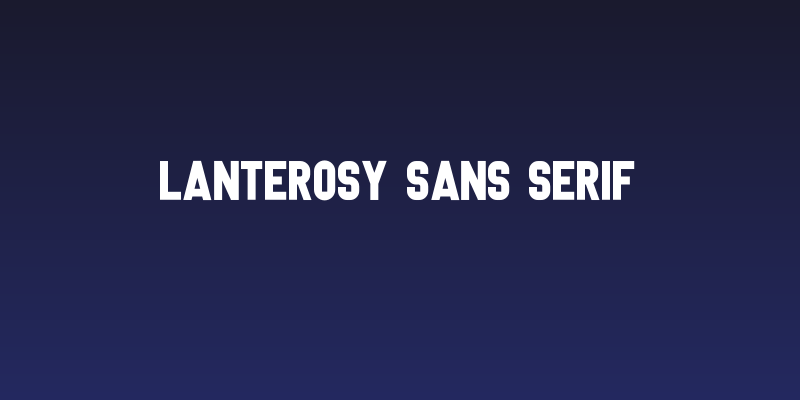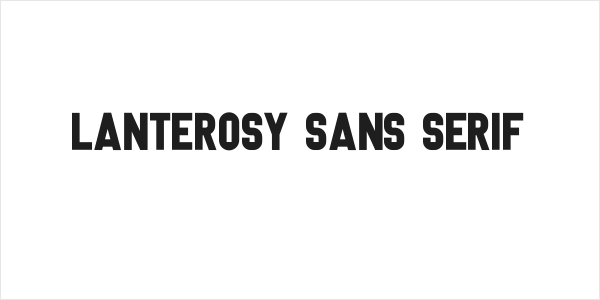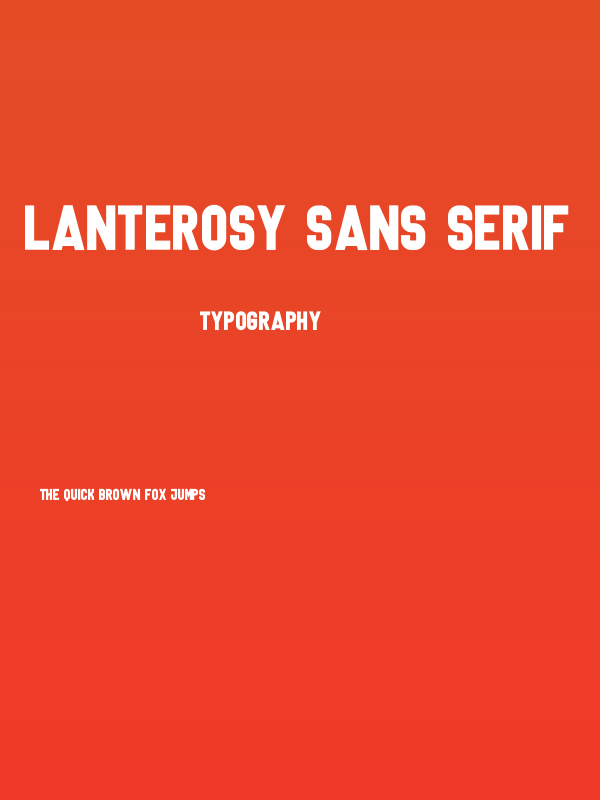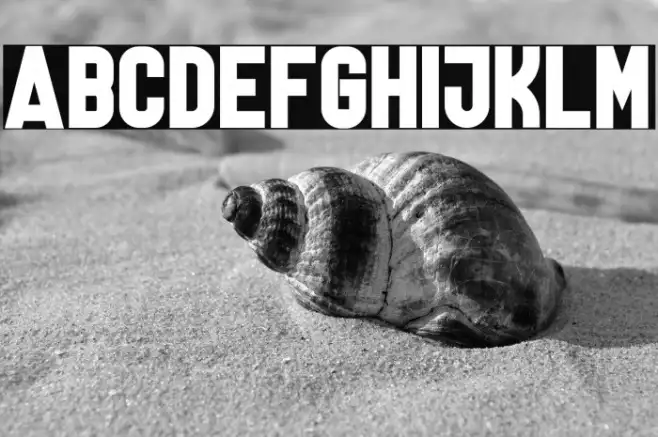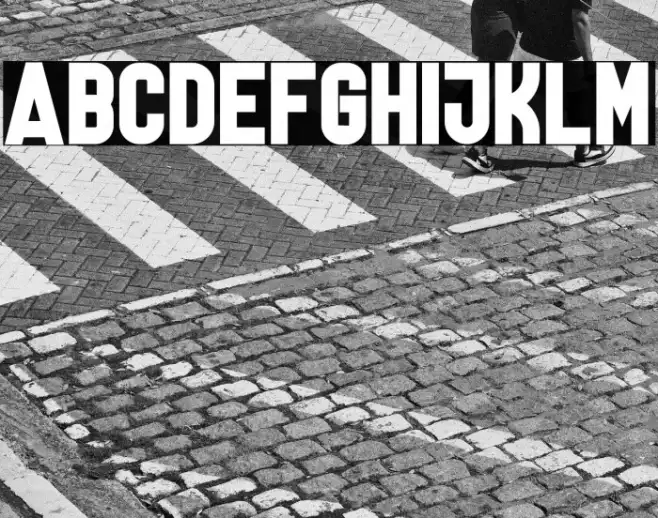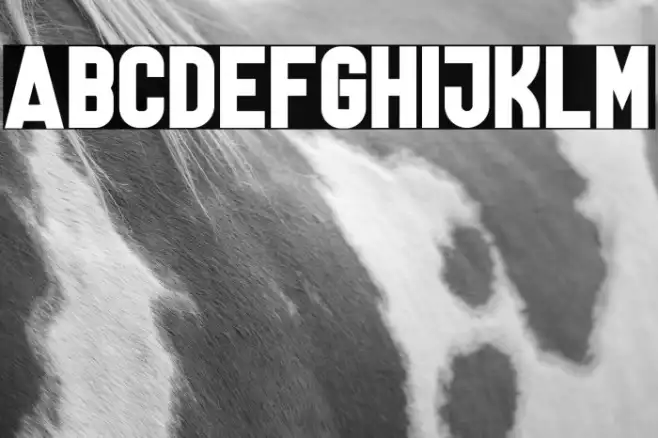
Lanterosy Sans Serif Font
Lanterosy Sans Serif Description
This font features a bold and impactful design, characterized by thick, uniform strokes and a strong geometric structure. The uppercase and lowercase letters maintain a consistent width, contributing to a cohesive and balanced appearance. The numerals are equally robust, ensuring readability and prominence. Special characters are designed with the same boldness, making them stand out effectively. The overall style is modern and assertive, suitable for making a strong visual statement.
| Proposed Projects | Ideal for branding, headlines, posters, and any design requiring a bold statement. |